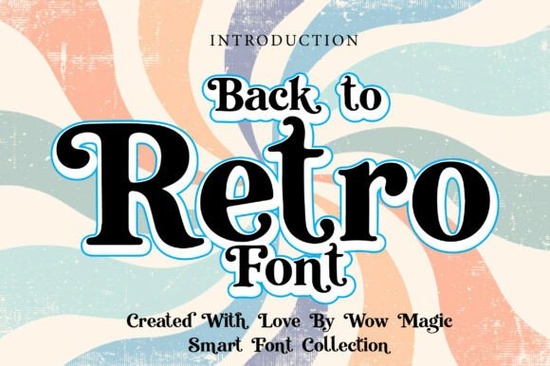
If you’ve been searching for a typeface that captures the warmth of mid-century design without feeling dated, the Back to Retro Font might be exactly what your project needs. It’s a display font that blends vintage charm with modern clarity ideal for everything from café signage to packaging labels and social media posts. Unlike overly ornate retro fonts, this one keeps its letterforms clean and legible while still evoking nostalgia through subtle curves and classic proportions.
What makes Back to Retro Font work for modern projects?
Retro doesn’t have to mean cluttered or hard to read. The Back to Retro Font strikes a balance: it nods to 1950s–70s advertising and packaging but avoids excessive embellishment. That means it scales well from small product tags to large posters and pairs easily with minimalist layouts or bold color palettes. Designers often use it for:
- Vintage-inspired brand identities (think bakeries, record shops, or boutique coffee roasters)
- Book covers and editorial headlines that need personality without sacrificing readability
- Social media graphics where a touch of whimsy helps content stand out
- Print-on-demand merchandise like mugs, T-shirts, or tote bags with throwback slogans
Its friendly yet structured appearance also makes it a solid choice for hobbyists who want professional-looking results without needing advanced typography skills.
How does it compare to other display fonts?
Not all retro fonts are created equal. Some lean too heavily into kitsch, while others feel stiff or generic. Back to Retro Font lands in a sweet spot playful but not cartoonish, nostalgic but not obscure. If you like its vibe, you might also appreciate other Creative Fabrica display fonts that balance character and usability, such as the refined Oscar Font, the handcrafted feel of Letter Crafts Font, or the elegant contrast in Eleanor Font. For something with inline detailing, Lumina Inline Font offers a different kind of vintage flair, while Junaid Font brings a more contemporary brush-script energy.
Who should use this font?
This font shines for creators who value authenticity and mood over trendiness. Small business owners crafting their own branding, Etsy sellers designing product labels, or teachers making classroom decor can all put it to good use. Even if you’re not a professional designer, the font’s intuitive shapes make it easy to create cohesive visuals quickly. Just avoid using it for body text it’s a display font, meant for headlines, logos, and short phrases where impact matters more than paragraph flow.
Tips for pairing and styling
To keep your designs from feeling “costume-y,” pair Back to Retro Font with a simple sans-serif (like Helvetica, Montserrat, or even a neutral geometric typeface). Stick to 1–2 accent colors mustard yellow, olive green, terracotta, or powder blue work especially well with its vintage tone. And remember: less is more. Let the font carry the personality; don’t overload your layout with extra textures or competing patterns.
Also, test your design at multiple sizes. Some retro fonts lose detail when scaled down, but Back to Retro Font holds up surprisingly well even on a 2-inch sticker or a phone-sized Instagram story.
- Preview first: Type out your actual phrase before committing. Retro fonts can look great in “HELLO” but awkward in “EXCLUSIVELY.”
If you’re aiming for that cozy, timeless aesthetic without diving into overly complex design work Back to Retro Font is a reliable, versatile tool worth adding to your creative kit.